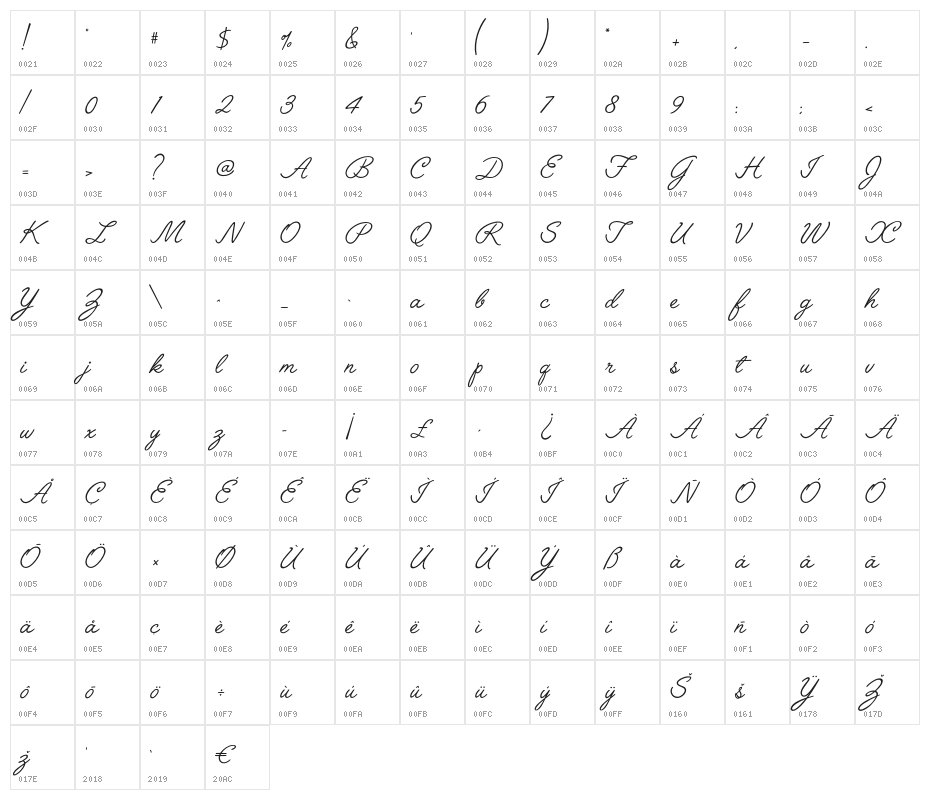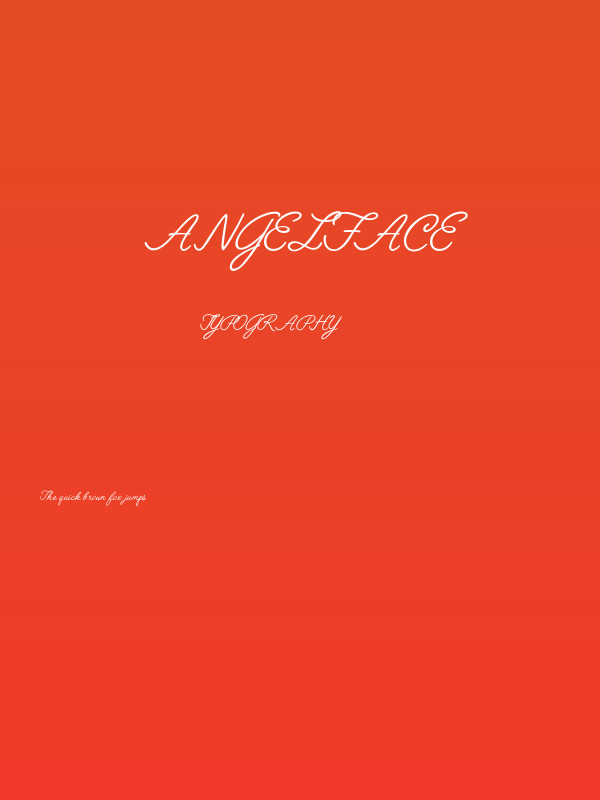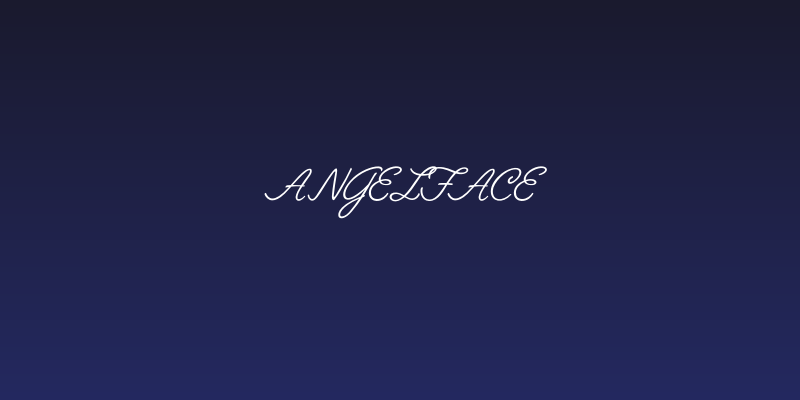
Angelface Font
✎ Calligraphic
Angelface Description
This elegant script font features flowing, connected letters that exude a sense of sophistication and grace. The uppercase letters are slightly larger and more ornate, while the lowercase letters maintain a consistent, smooth flow. The numerals are styled to match the cursive nature of the alphabet, providing a cohesive look. Special characters are included, maintaining the same elegant style, making this font versatile for various uses. The overall appearance is reminiscent of traditional calligraphy, yet it maintains a modern touch, making it suitable for both formal and contemporary designs.
| Use Case | Logos, Invitations, Decorative text |
| Proposed Projects | Ideal for wedding invitations, elegant branding, personal stationery, and decorative signage. |